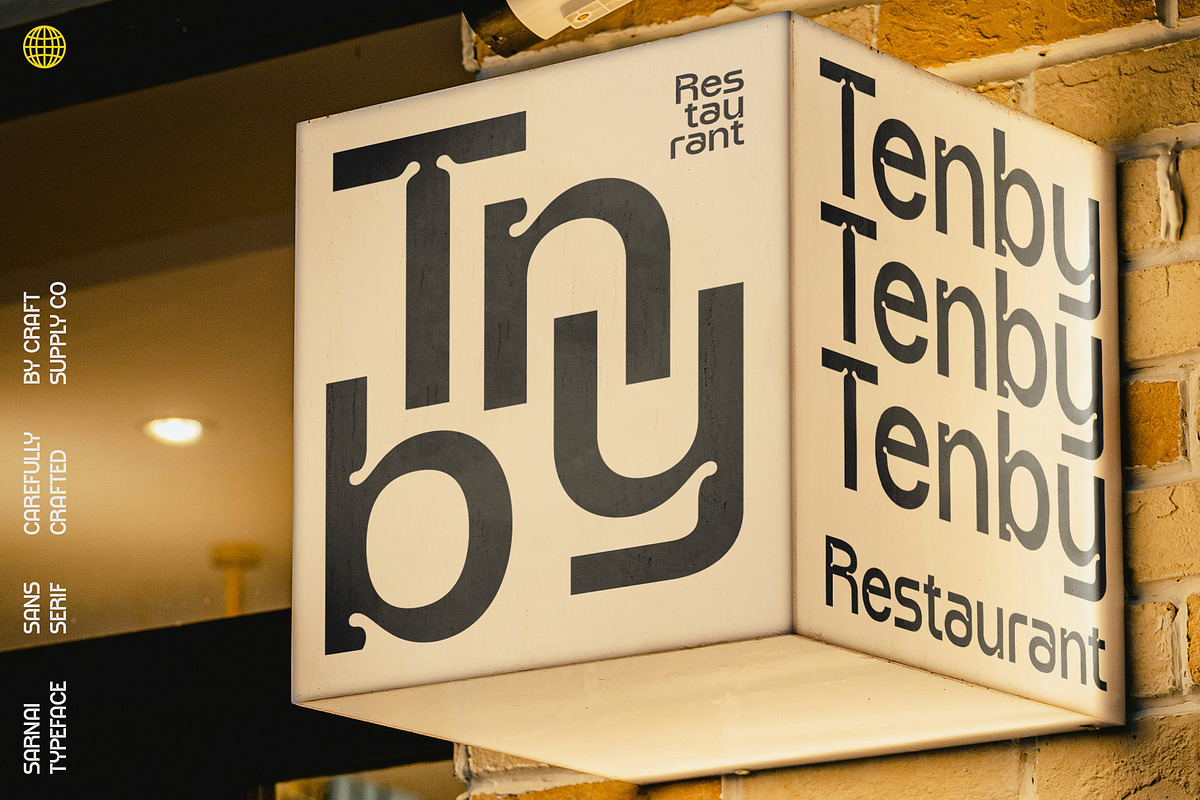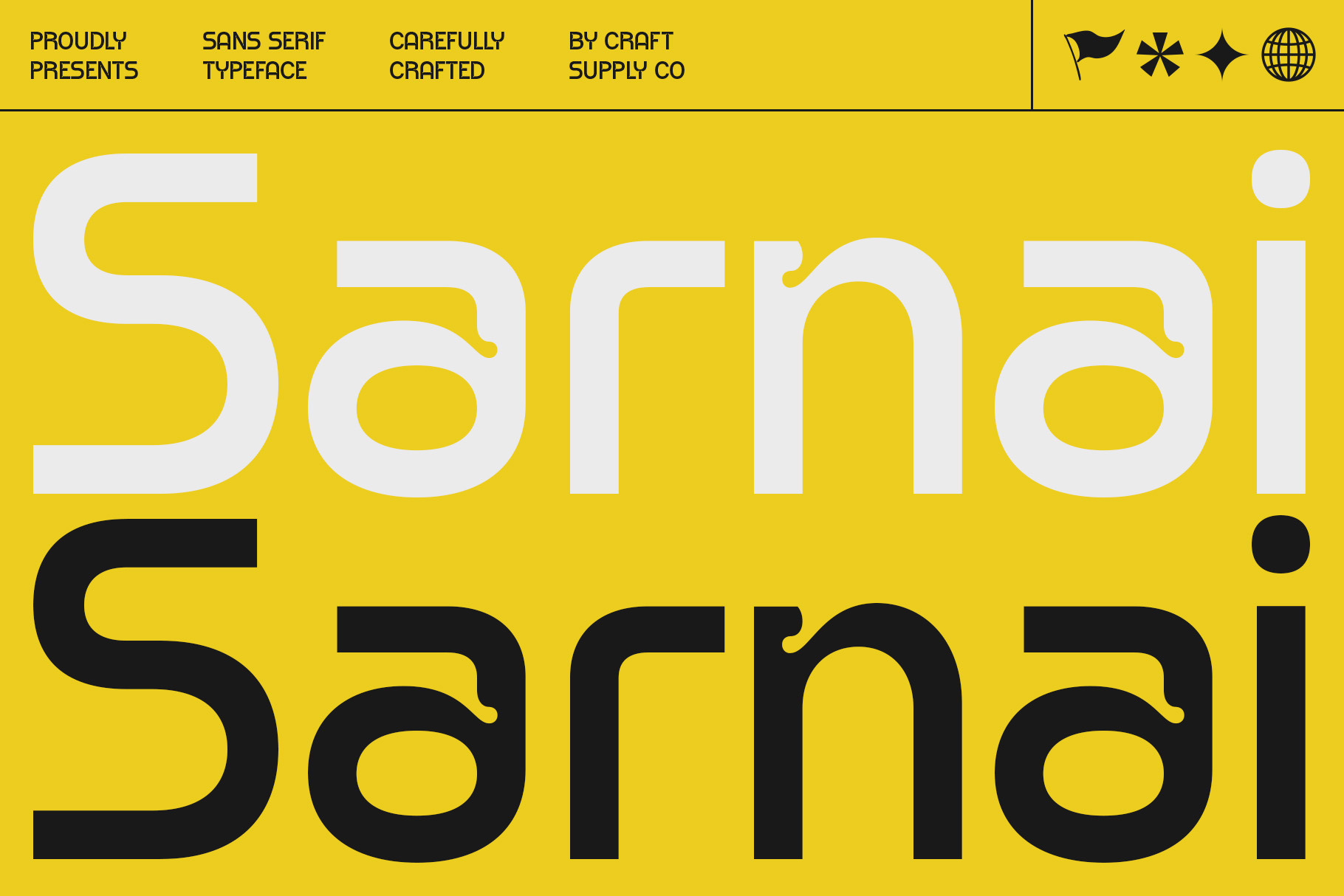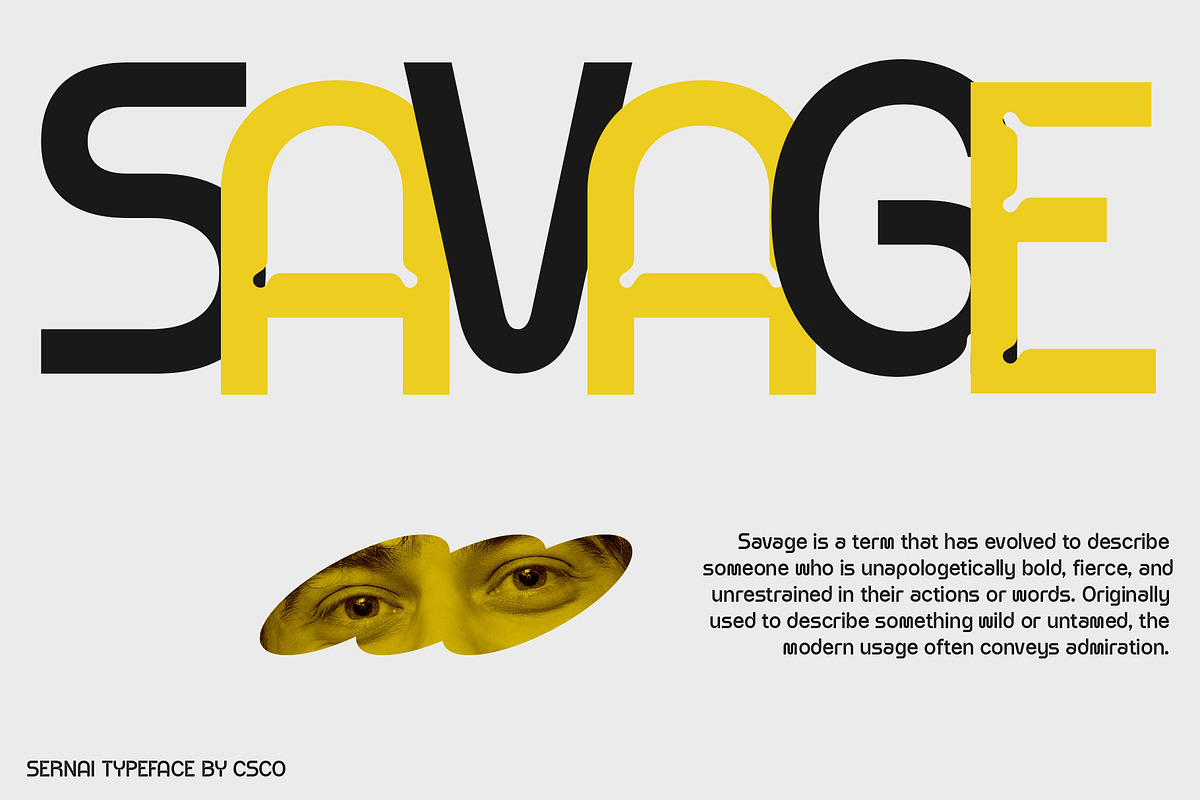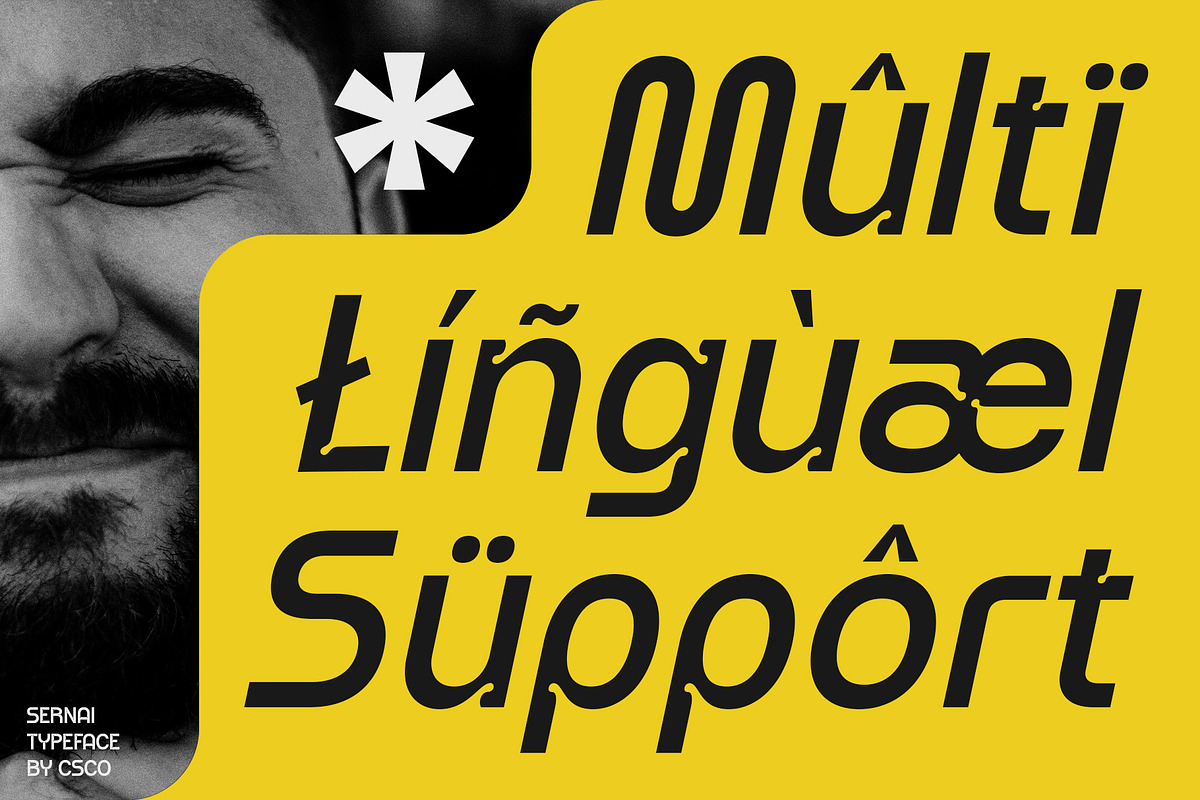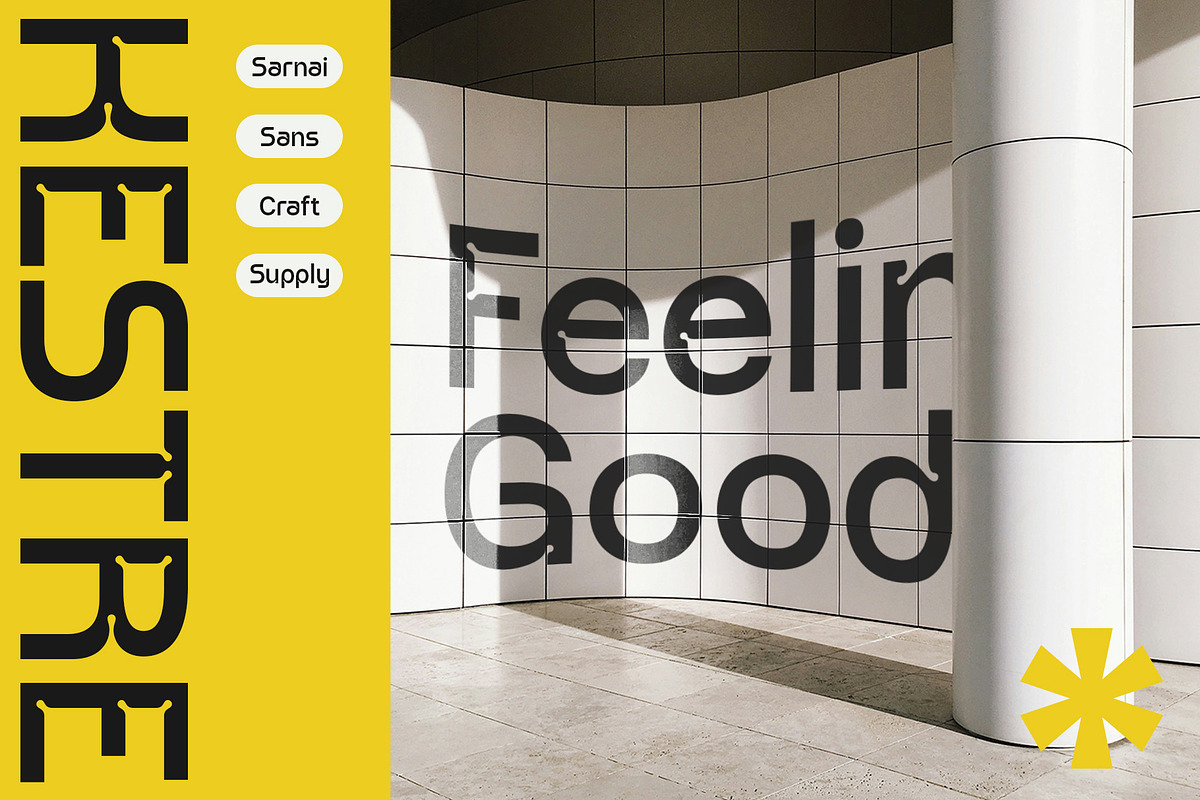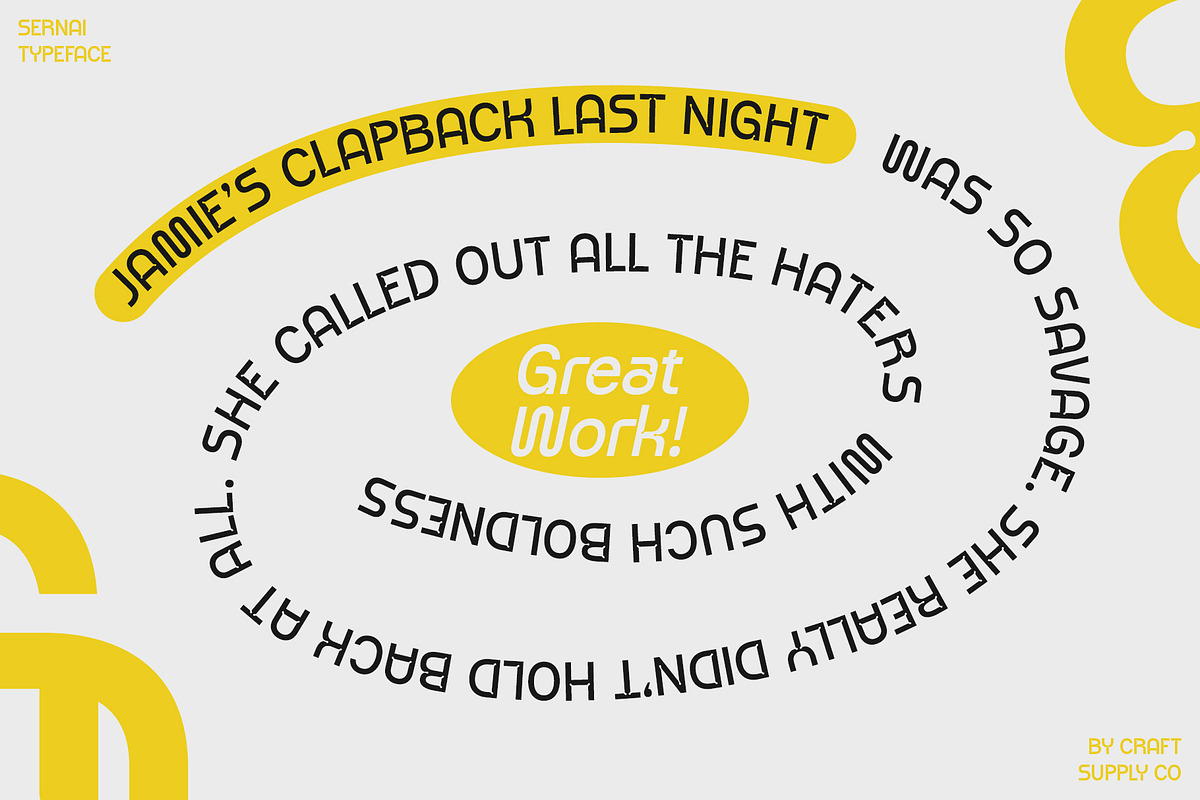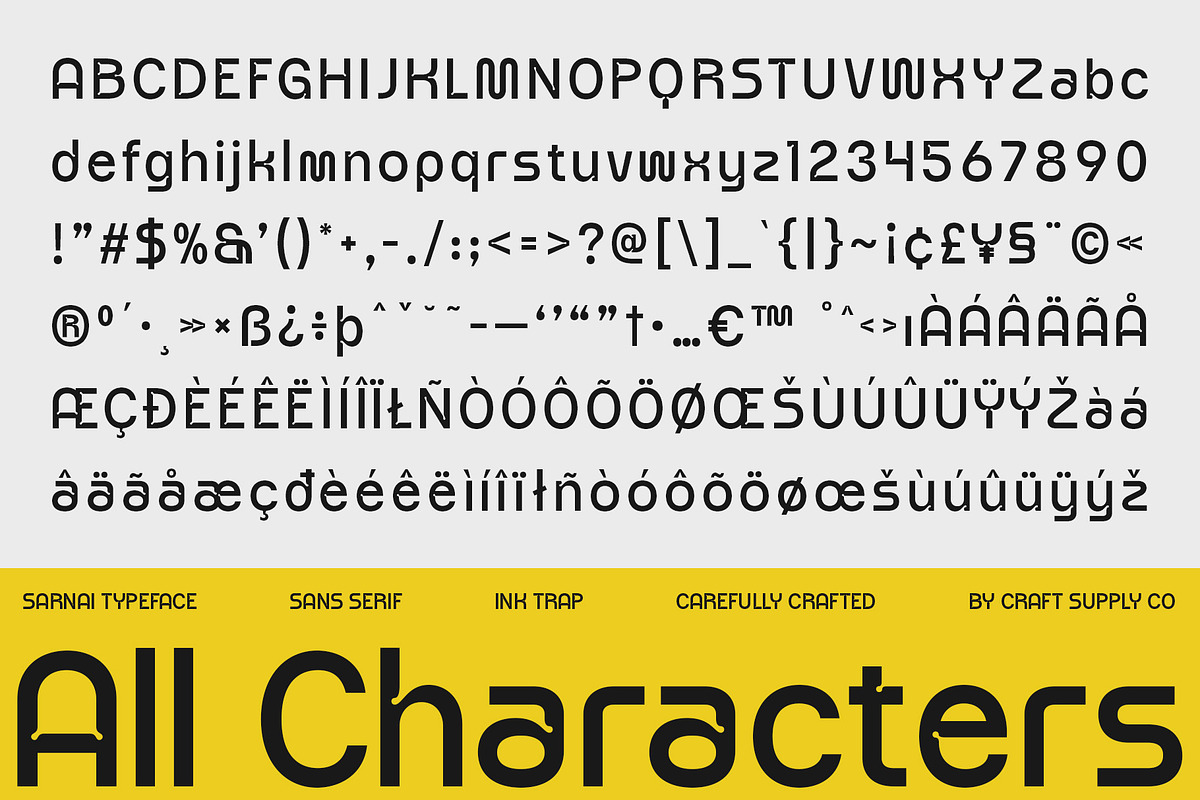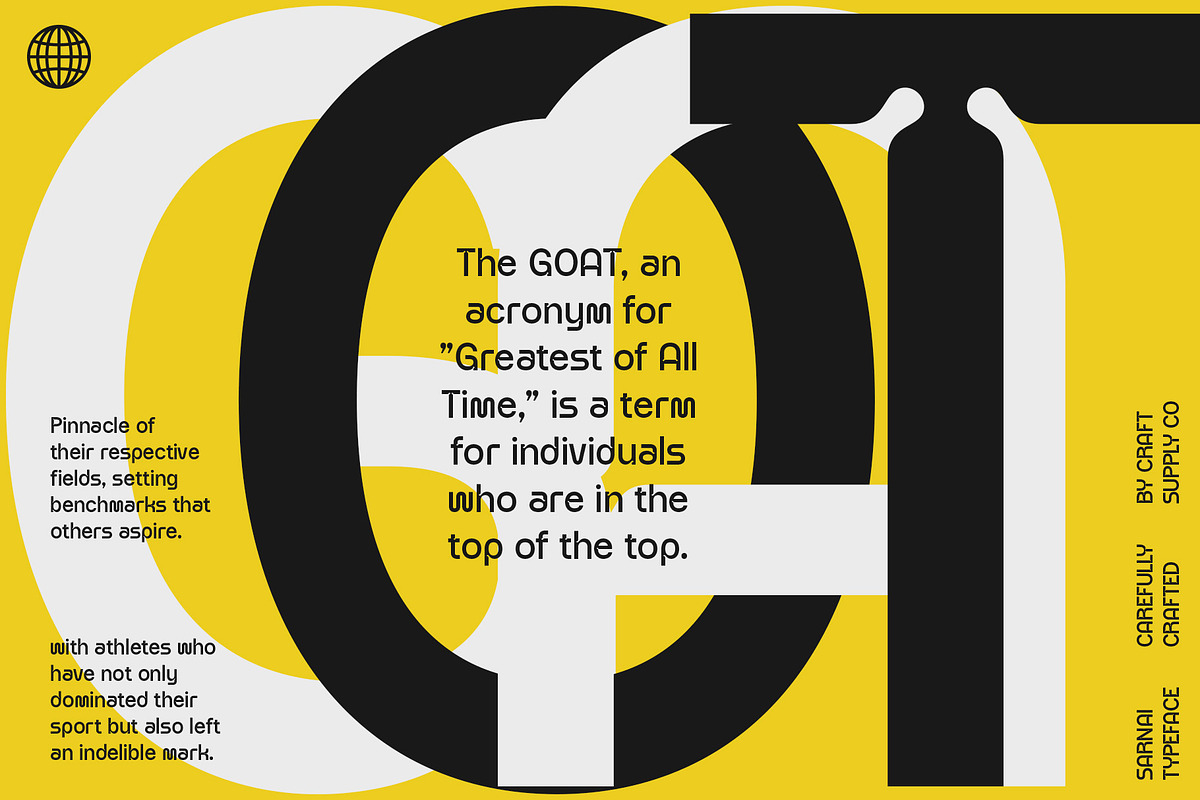
Sarnai – Sans Serif Font
Sarnai – Sans Serif Font: Clean Elegance with Inktrap Detail
Modern Sans Serif with Inktrap
Sarnai – Sans Serif Font combines modern simplicity with intricate inktrap details, ensuring clarity and style even at smaller sizes. The font’s clean lines and subtle inktrap features enhance its visual appeal, making it suitable for a wide range of design applications.
Versatile Design for Various Applications
Ideal for web design, print materials, promotional items, and brand identities, Sarnai Font offers versatility and clarity. The inktrap design adds a unique aesthetic touch without compromising text legibility, making it a flexible choice for diverse design needs.
Balanced Blend of Style and Functionality
Experience the balanced blend of style and functionality with Sarnai Font. Whether used for headlines, body text, or branding elements, its clean style and inktrap details ensure clear communication and visual impact. Elevate your designs with Sarnai Font’s modern elegance and versatile appeal.
- Sarnai Regular
- Sarnai Italic